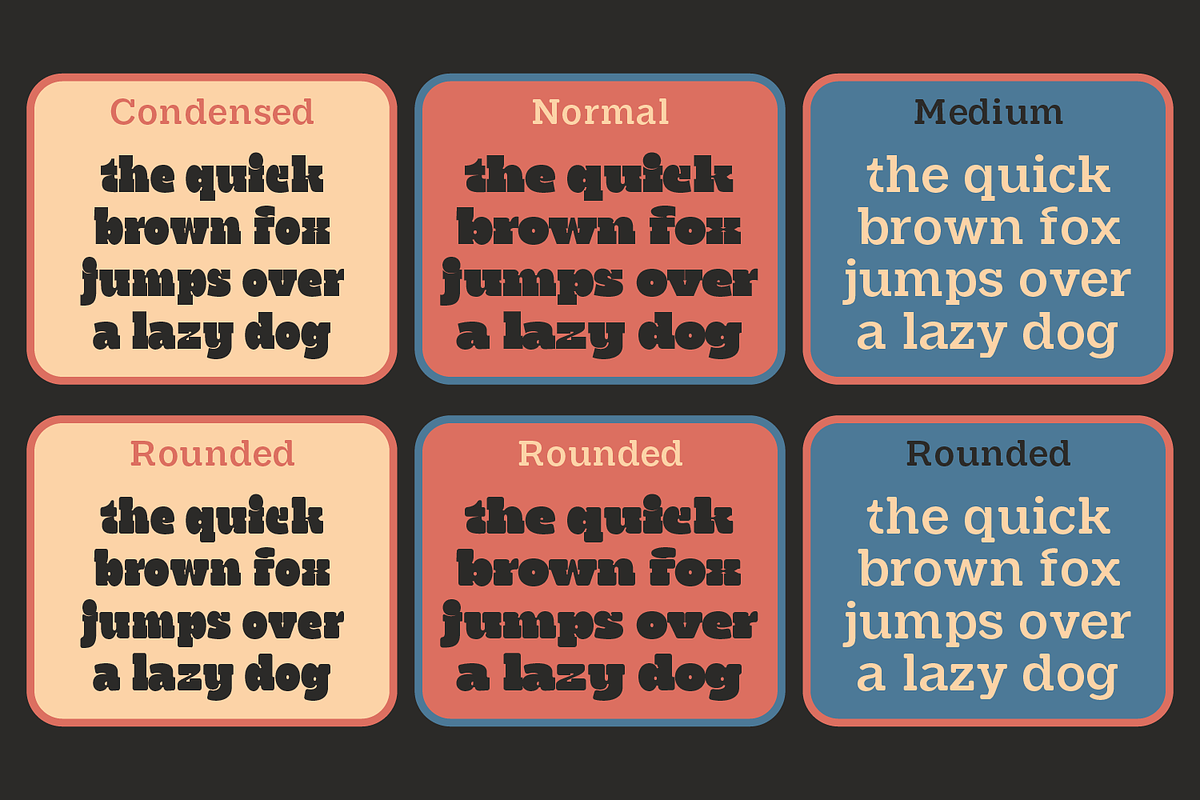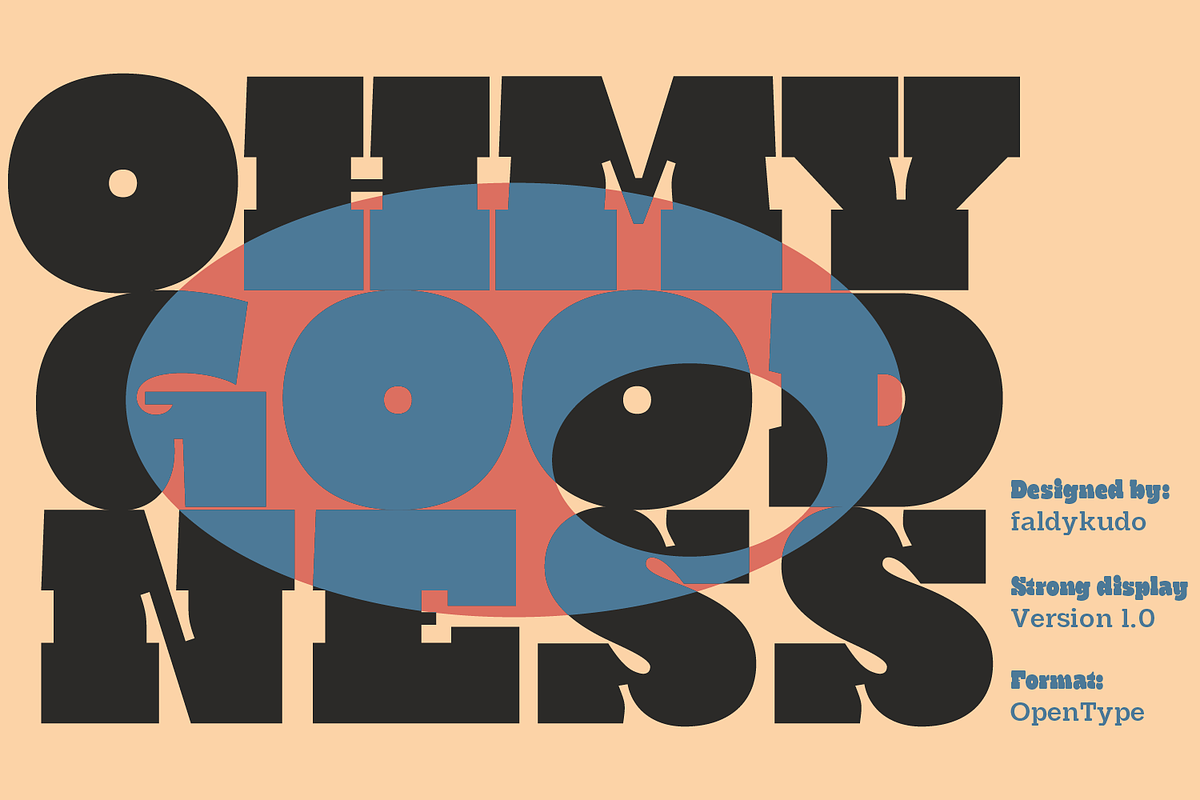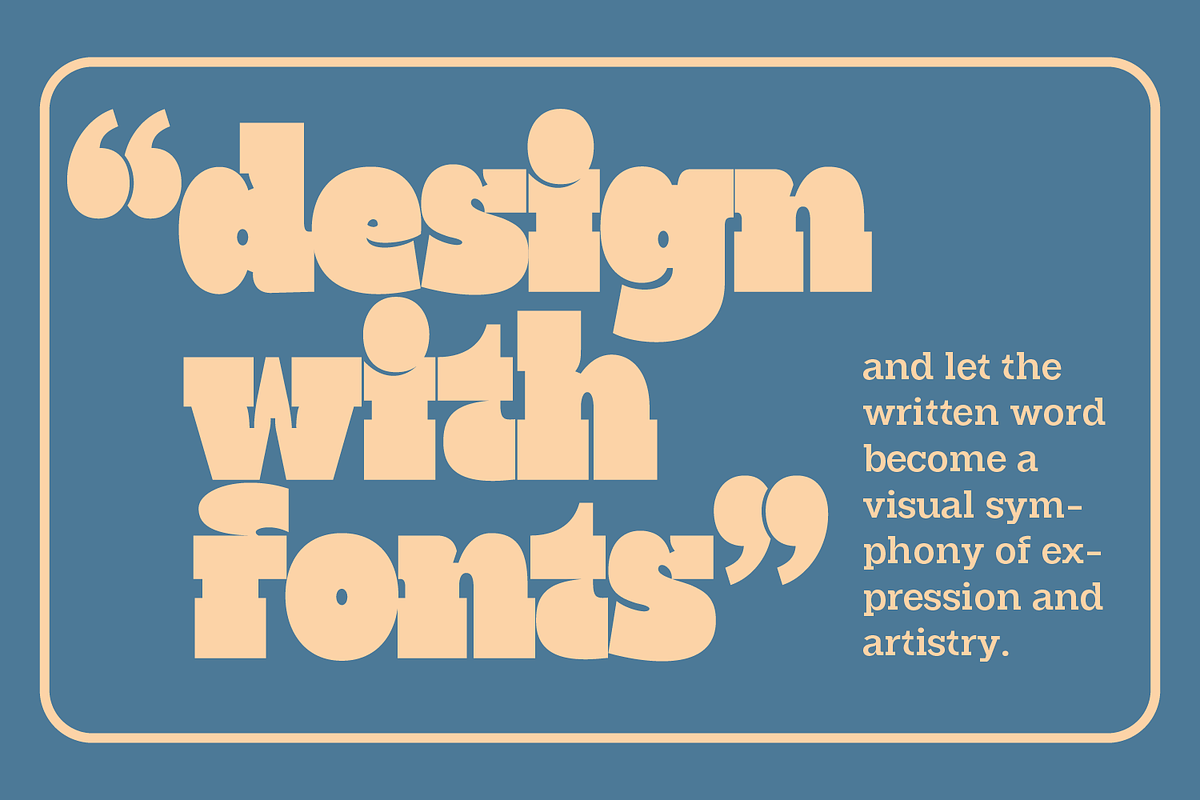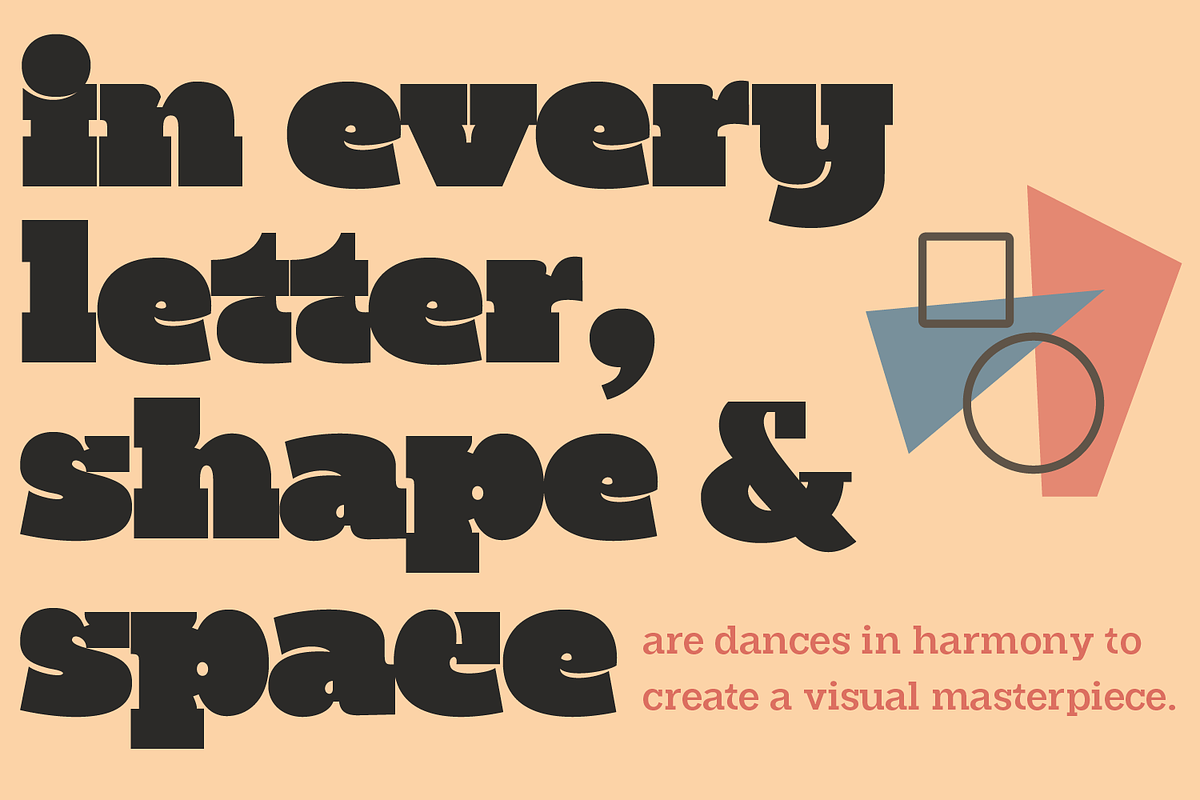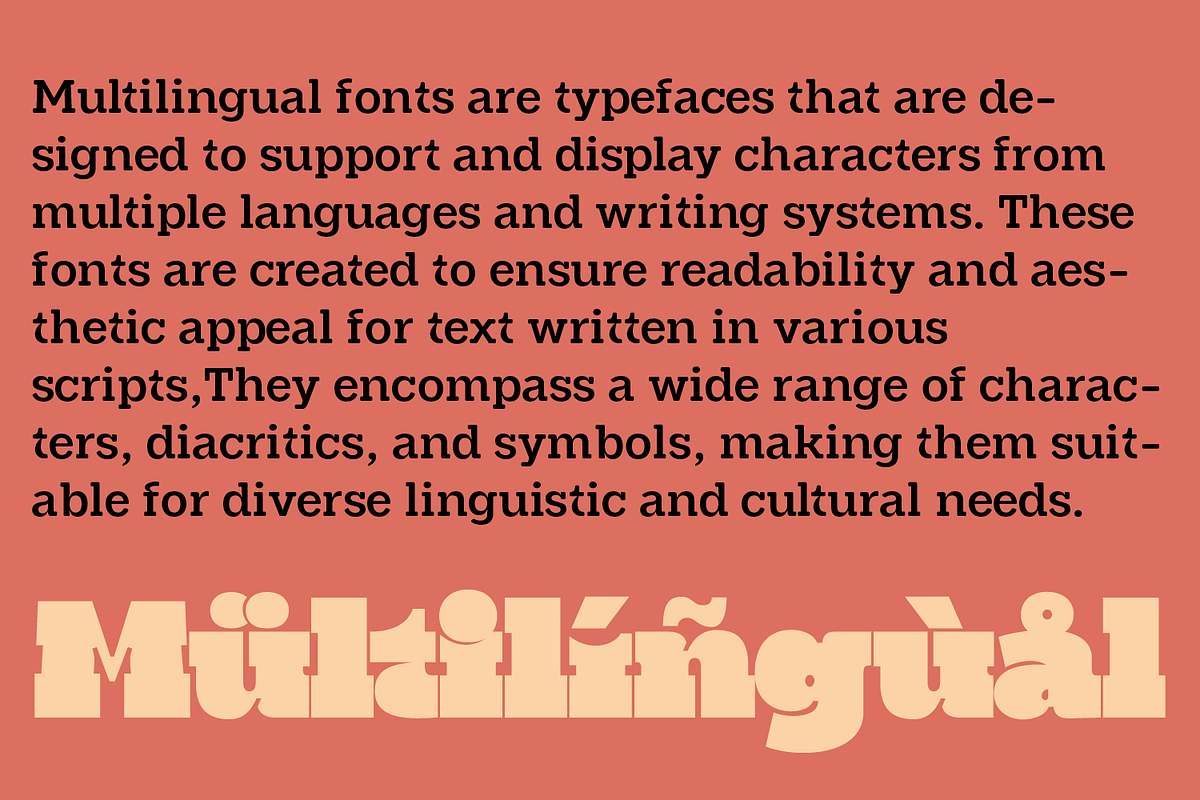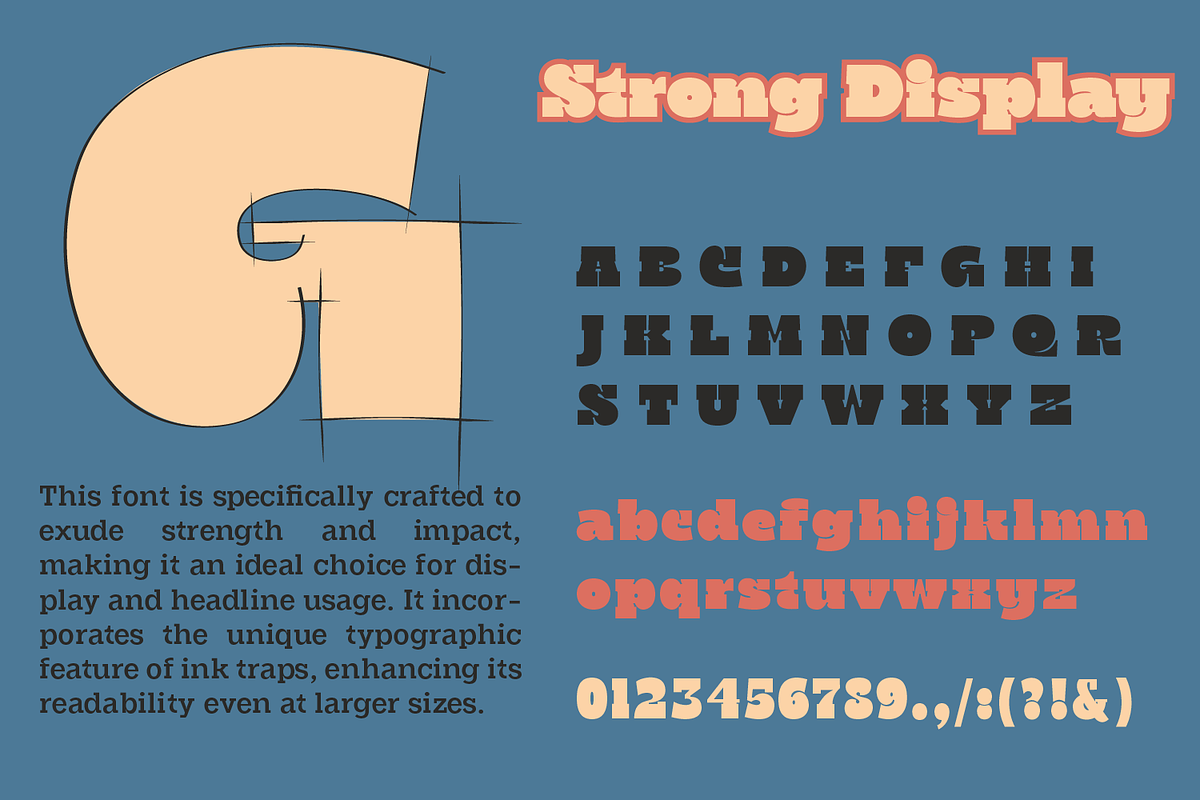
Strong Display Sans Family
The "Strong Display Font" is a derivative of the Clinto slab serif font, originally designed by. Faldy Kudo. This font is specifically crafted to exude strength and impact, making it an ideal choice for display and headline usage.
It incorporates the unique typographic feature of ink traps, enhancing its readability even at larger sizes. The Strong Display has 6 styles of family
The font family comprises 6 distinct styles: "Normal, Normal Rounded, Medium, Medium Rounded, Condensed, and Condensed Rounded.” offering versatility in design choices. Additionally, the font provides multi-language support, ensuring that it can be effectively used for a wide range of global content and projects.